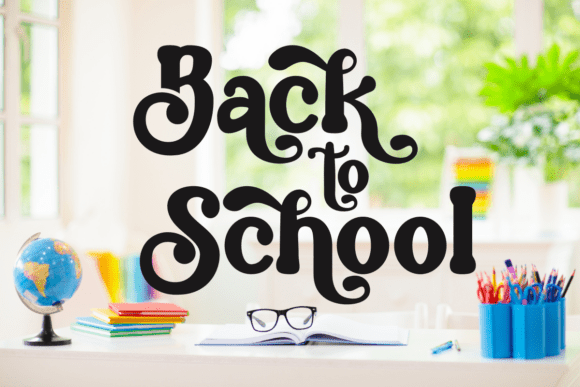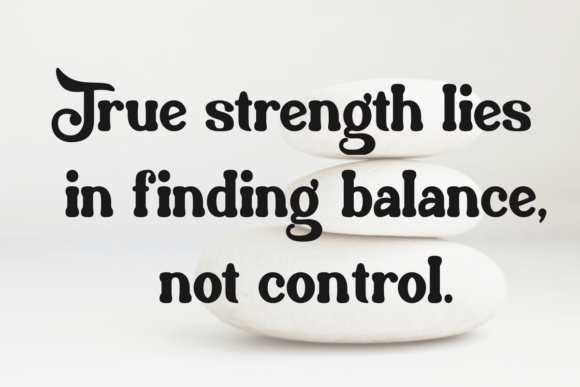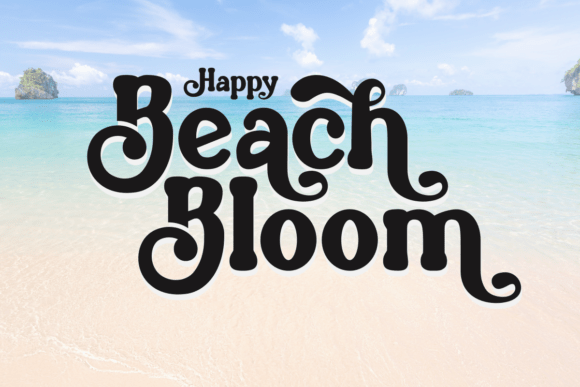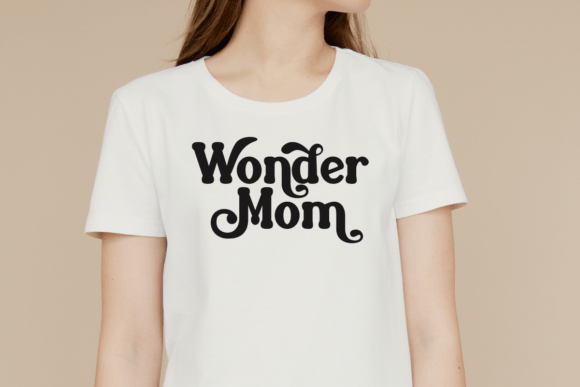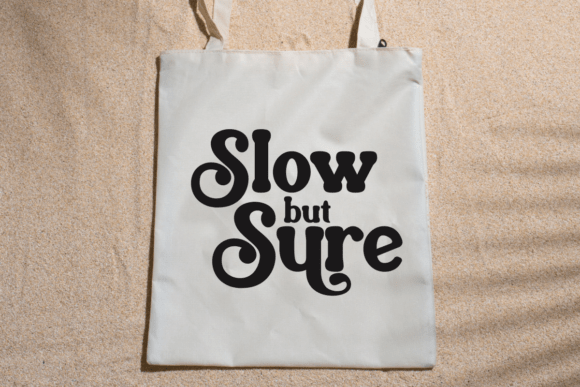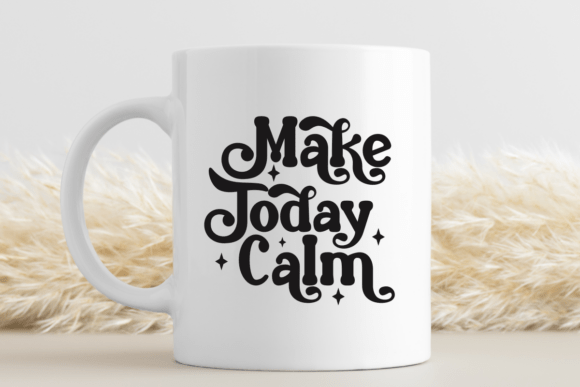
Get Ready to Groove with Boho is Back Font
Remember the rush of excitement when you stumble upon the perfect font for your design project? It’s that moment when all the pieces fall into place, and your creativity soars. For designers craving a touch of free-spirited elegance, we’ve got the answer: Boho is Back Font. This bold and unique display font is a nod to the carefree vibes of the 1970s, with chunky letterforms and retro-style touches that will transport your designs to a bygone era.
With its warm, characterful feel, Boho is Back Font is perfect for branding, quotes on t-shirts, stickers, invitations, and social media designs. Its versatility makes it an invaluable asset for designers seeking to add a bohemian twist to their projects. Whether you’re a seasoned pro or a budding creative, this font is sure to bring a fresh burst of energy to your designs.
Boho is Back Font Key Features
- Unique Characteristics: The Boho is Back Font features a unique blend of bohemian and vintage elements, with intricate details and ornate flourishes.
Boho is Back Font Review
As a designer, I was excited to dive into the “Boho is Back Font” and see if it lives up to its free-spirited name. Here’s my honest review:
- Unique and eclectic feel: The font has a distinct bohemian vibe that’s perfect for those who want to add a touch of whimsy to their designs.
- Good for headings: The font’s bold and playful nature makes it ideal for headings and titles, adding a sense of excitement and energy.
- Variety of styles: The font comes in several styles, including bold, italic, and regular, giving designers flexibility and options for their projects.
- Legibility issues: In some cases, the font’s unique letterforms can make it difficult to read, especially in smaller sizes or at a distance.
- Limited typographic control: The font’s eccentric nature can make it challenging to achieve precise typographic control, which may be a concern for designers who require precise alignment and spacing.
The “Boho is Back Font” is a great option for designers who want to add a touch of personality to their projects. While it may have some limitations, its unique charm and eclectic feel make it a great choice for those who want to stand out. Just be sure to use it wisely and balance it with more traditional fonts to avoid overwhelming the design.
Practical Application Guide for Boho is Back Font
Tips for getting the most out of it:
* Use the font for headings or titles to add a bohemian touch to your design.
* Pair the font with other fonts to create a unique and eclectic look.
Tips for getting the most out of it:
* Use the font for creative and artistic projects, such as hand-lettering or typography art.
* Experiment with different font sizes and styles to add depth and interest to your design.
Tips for getting the most out of it:
* Use the font for presentations or documents that require a creative and eye-catching look.
* Pair the font with other fonts to create a unique and professional look.
The Boho is Back Font is perfect for:
* Creative and artistic projects, such as hand-lettering or typography art.